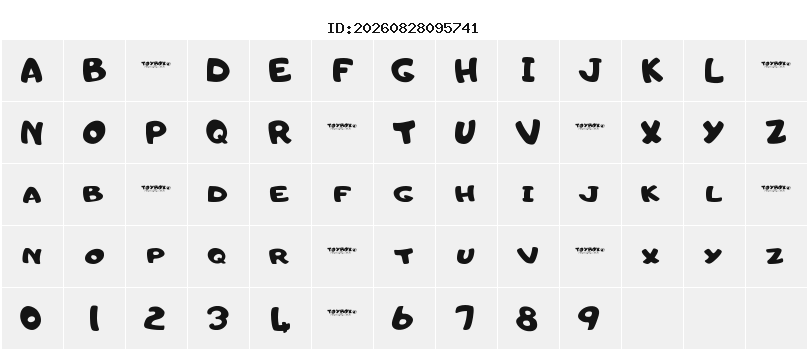
Toybox Preview
• Font Name: Toybox
• Designer: Chris Brown
• Description: TOYBOX is a design font with a large, rounded, fun style. Suitable for all applications where a child-type look is desired.
About Toybox.ttf
Toybox.ttf is a modern, elegant sans-serif font designed for ultimate readability and visual harmony. Perfect for branding, headlines, web design, and print materials.